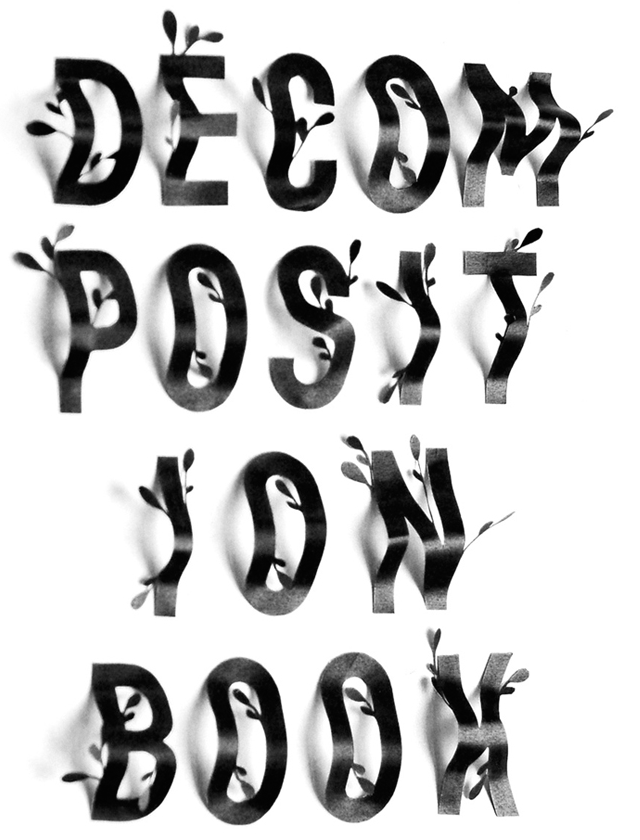
Melbourne based Designer, illustrator & letterer Rachel Chew created thissensational dimensional type for @notemaker the letters are both decomposing and growing! (Holding up a mirror to the flux of our paper consumption/waste/recycling).
I think it's a really clever piece of typography (not to mention the skills involved in the cutting - those leaves would have taken very steady hands)! This shadowy composition was designed, cut and photographed to promote notebooks made from 100% post consumer waste - and the design has been selected for Communication Arts 2016 Type Annual.